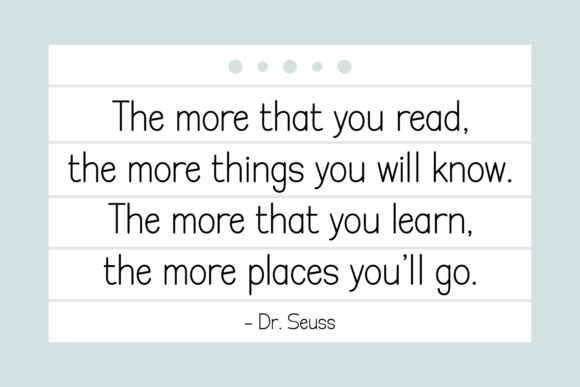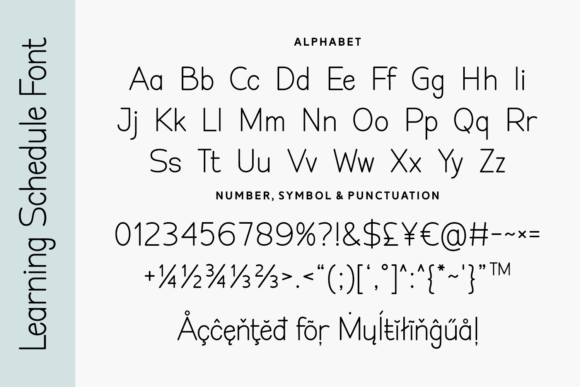
Introduction to Learning Schedule Font
Remember the thrill of rummaging through your childhood pencil case, discovering a new set of colorful pens and a notebook with a fresh, blank page? It’s a feeling that never truly fades, and it’s exactly this sense of excitement and possibility that the Learning Schedule Font embodies.
As a designer, you know the importance of finding the right font to bring your creative project to life. With the back-to-school season just around the corner, the Learning Schedule Font offers a high-quality design resource that’s perfectly timed for educational materials, children’s books, and school-themed projects. Its friendly, handwritten character is sure to delight, and the transparent background makes it easy to layer and combine with other design elements.
Key Features of Learning Schedule Font
- High-quality design: A professional and modern font designed specifically for educational purposes.
- Transparent background: The font is provided with a transparent background, making it easy to use over any background image or color.
- Size and resolution: The font is designed to be scalable, with a resolution of 300 DPI, making it suitable for use in various sizes and resolutions.
- Perfect for creative projects: The Learning Schedule Font is ideal for educational and creative projects, such as planners, calendars, and other design resources.
- Easy to use: The font is designed to be easy to read and use, making it perfect for students, teachers, and designers alike.
Honest Review: Learning Schedule Font
I recently stumbled upon the Learning Schedule Font, and I must say it’s a game-changer for creatives working on high-quality projects. As a designer, I appreciate the attention to detail and the thoughtfulness that went into crafting this design resource.
Here are some aspects that work well: ✨
- High-quality vector graphics: The Learning Schedule Font boasts crisp and clear vector graphics that are perfect for printing or using on digital screens.
- Transparent background: This feature allows designers to easily place the font over any background, making it incredibly versatile.
- Limited customization options: While the font is well-designed, there aren’t many customization options available.
- Not ideal for complex creative projects: Due to its simplicity, the Learning Schedule Font may not be the best choice for intricate or complex projects.
Overall, I’m impressed with the Learning Schedule Font. It’s a fantastic design resource for creatives working on simple or straightforward projects. With its high-quality design and transparent background, it’s an excellent addition to any designer’s toolkit.
How to Use Learning Schedule Font
Designing a High-Quality Learning Schedule with Transparency
You can also use the Learning Schedule Font in PowerPoint or Word to create engaging presentations and documents. The font’s transparent background feature ensures that your design remains clean and easy to read.
Tips for Getting the Most Out of the Learning Schedule Font
Some tips for maximizing the effectiveness of the Learning Schedule Font include using it in conjunction with other high-quality design elements and keeping your design simple and easy to read.
The Learning Schedule Font is commonly used in educational settings, such as creating lesson plans, study schedules, and project timelines. It’s also useful for personal projects, like planning a creative project or setting goals for personal development.